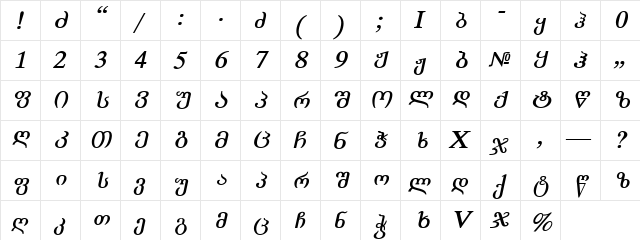
Academiury-ITV Bold Italic
Design Context for Academiury-ITV Typeface
Academiury-ITV takes a measured approach to typography — its balanced proportions and neutral character make it a reliable workhorse for both digital and print work. Its italic angle brings a sense of urgency and motion to the letterforms. The heavy weight commands attention and anchors typographic hierarchies.